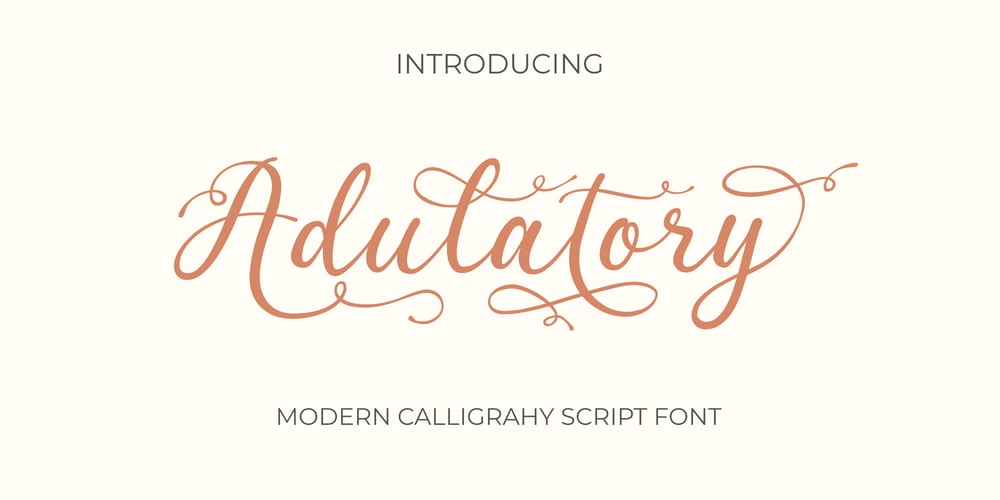
Adulatory Font Family was designed by Ali Hamidi and published by Ali Hamidi. Adulatory contains 1 styles and family package options. Adulatory is a classy, elegant, and flowing calligraphy script font perfect for your favorite projects. Fall in love with its incredibly distinct and timeless style, and use it to create spectacular designs!